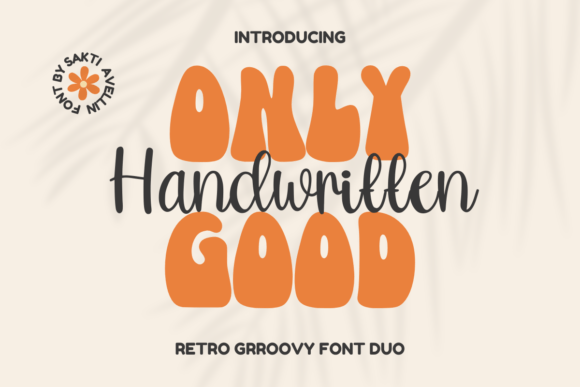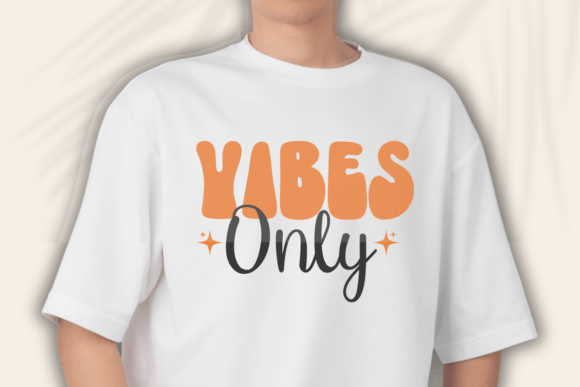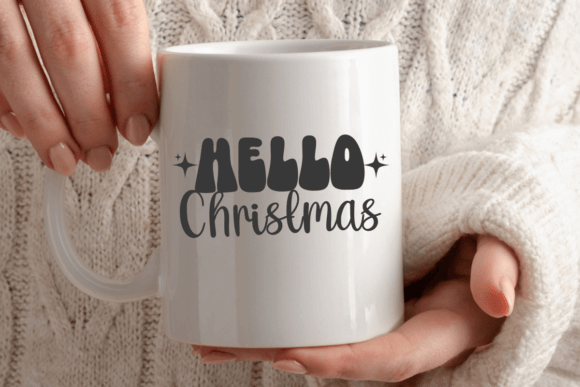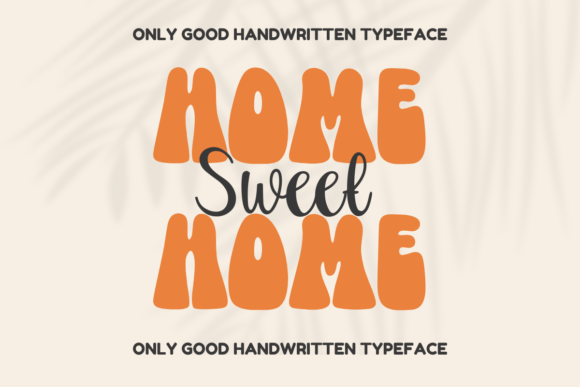
Only Good Handwritten Font
About the Only Good Handwritten Font
Explore the possibilities with Only Good Handwritten Font, a font that offers both beauty and functionality. Only Good Handwriting font duo is a script and retro font, perfect for good designs.
This font is suitable for t-shirts, wedding invitations, posters, packaging, merchandise, logotypes, and much more!
Its playful yet refined script style makes it ideal for branding projects aiming for a vintage or handcrafted feel, particularly those related to food, fashion, or artisanal goods. It excels in headlines, short text blocks on packaging, and logos where its unique character can shine. However, avoid using it for large amounts of body copy or UI elements; its intricate details can become difficult to read at smaller sizes.
Pairing it with a clean sans-serif like Open Sans for body text provides excellent contrast and readability. For a more vintage-inspired design, consider pairing it with a complementary serif like Playfair Display. Alternatively, a geometric sans-serif like Montserrat can offer a modern counterpoint to the font’s organic forms.
The overall personality is best described as charmingly retro and approachable, conveying a sense of authenticity and handcrafted quality. This makes it a strong choice for brands emphasizing warmth and personality.
Only Good Handwritten Font Usage Examples
Only Good Handwritten Font Example